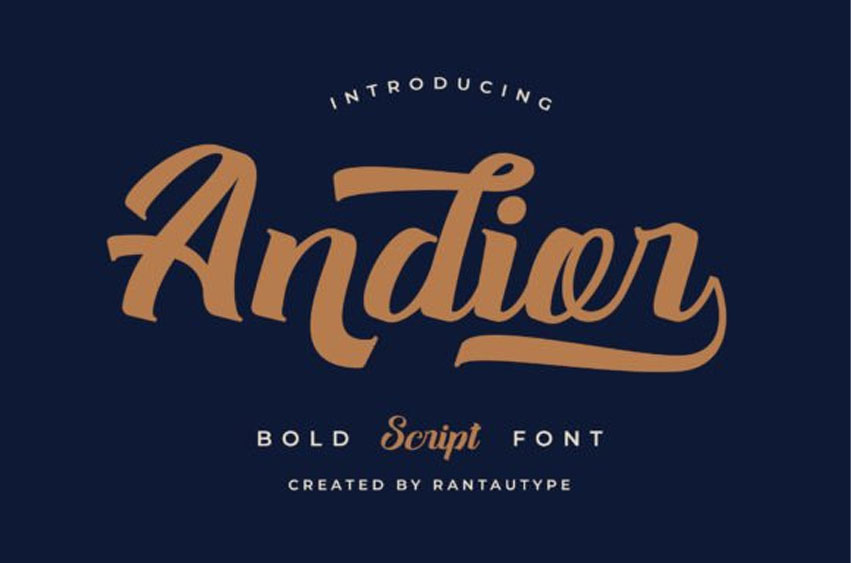
Andior Font is a delicate, elegant and flowing handwritten font. It has beautiful and well balanced characters and as a result, it matches a wide pool of designs.